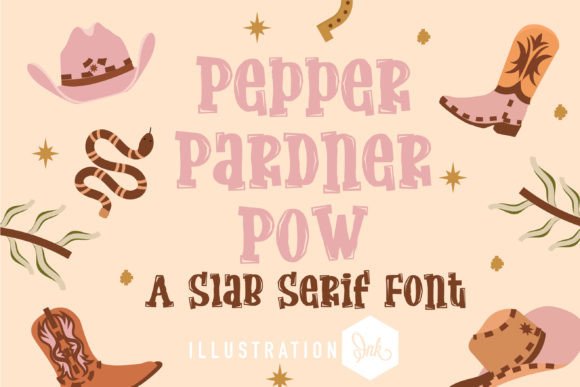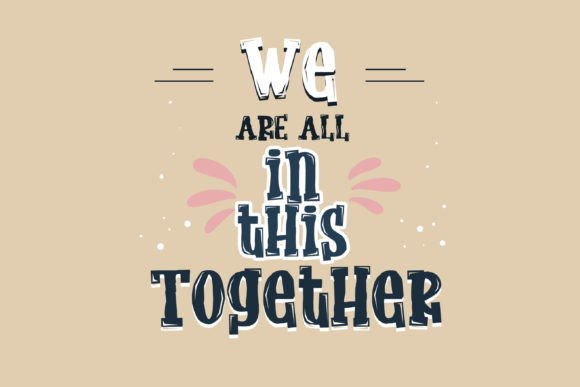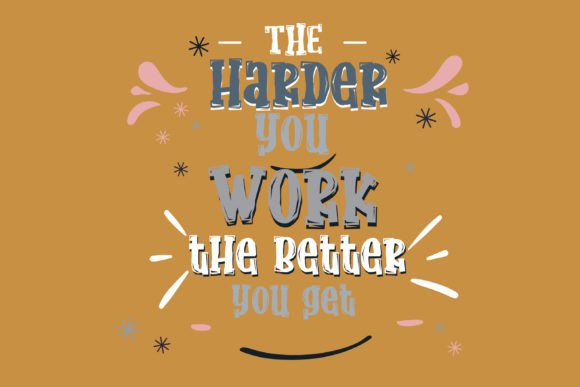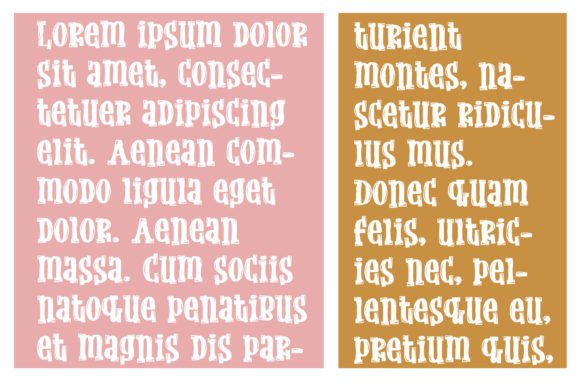
About Pepper Pardner
Discover the stunning impact of a bold and striking slab serif font that demands attention. With intricate details, unique shapes, and bold lines, this typeface is the perfect choice for headlines, logos, and other design elements that require a powerful presence. Elevate your design projects with this eye-catching and impressive font.